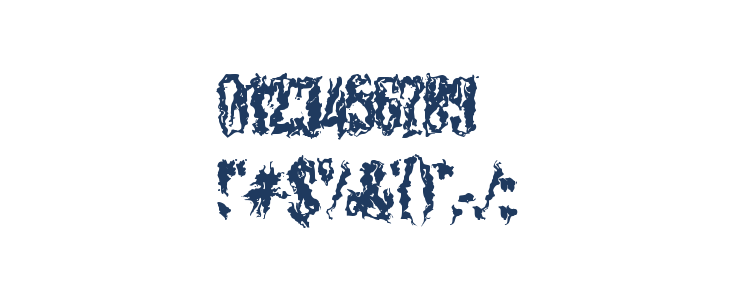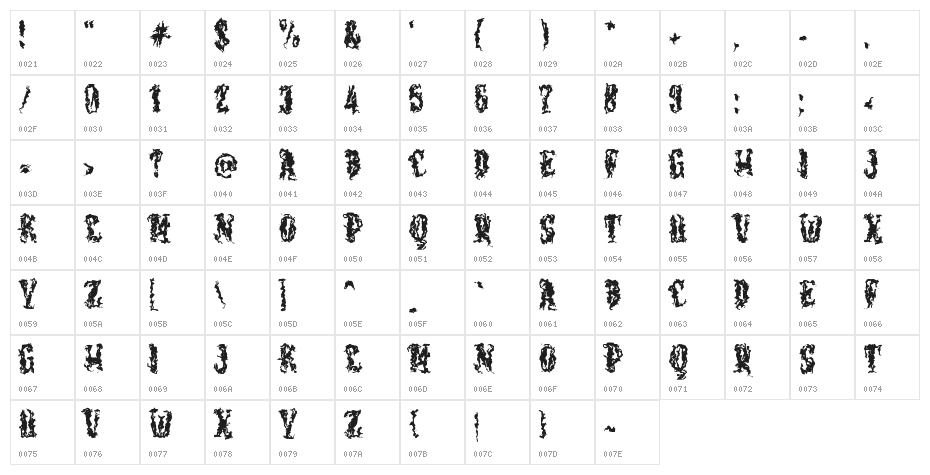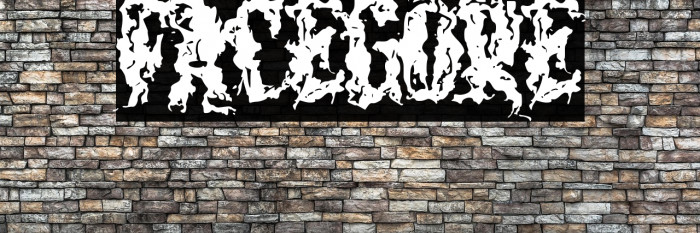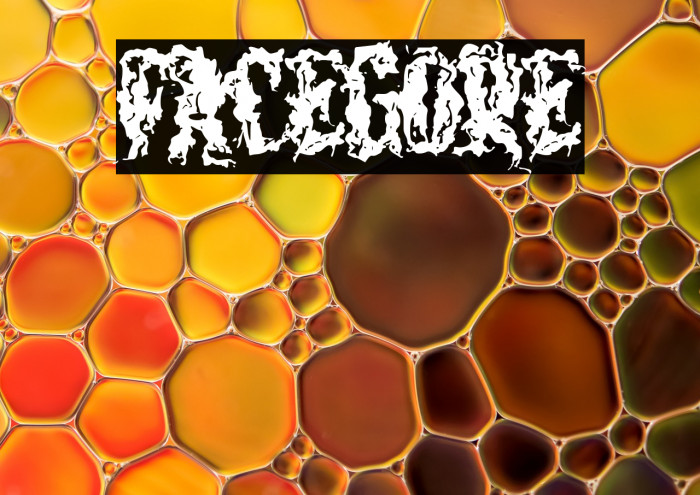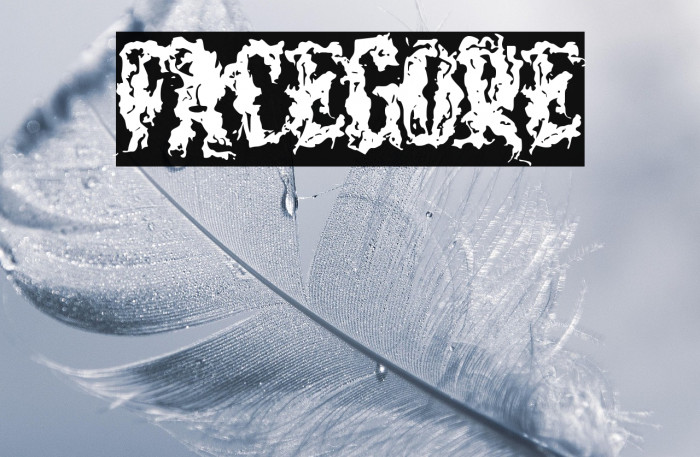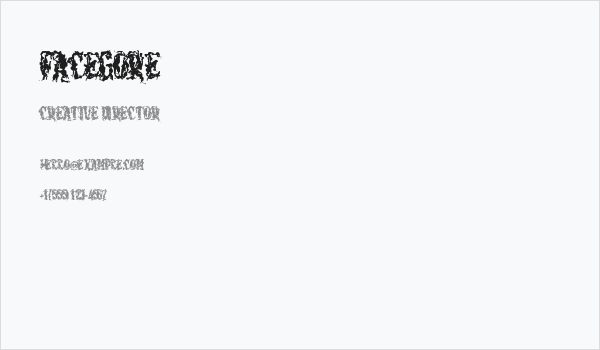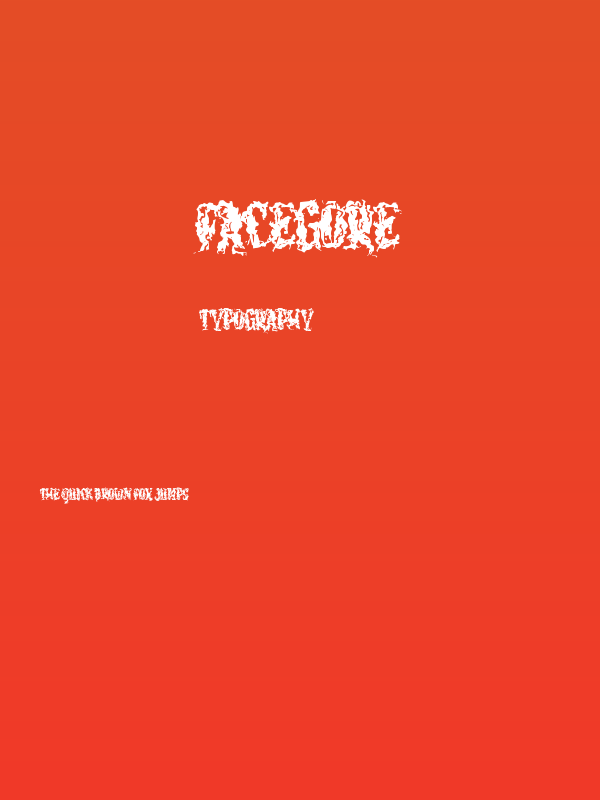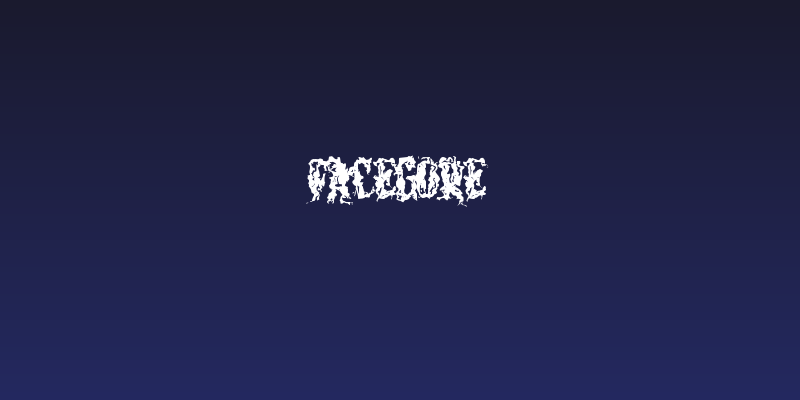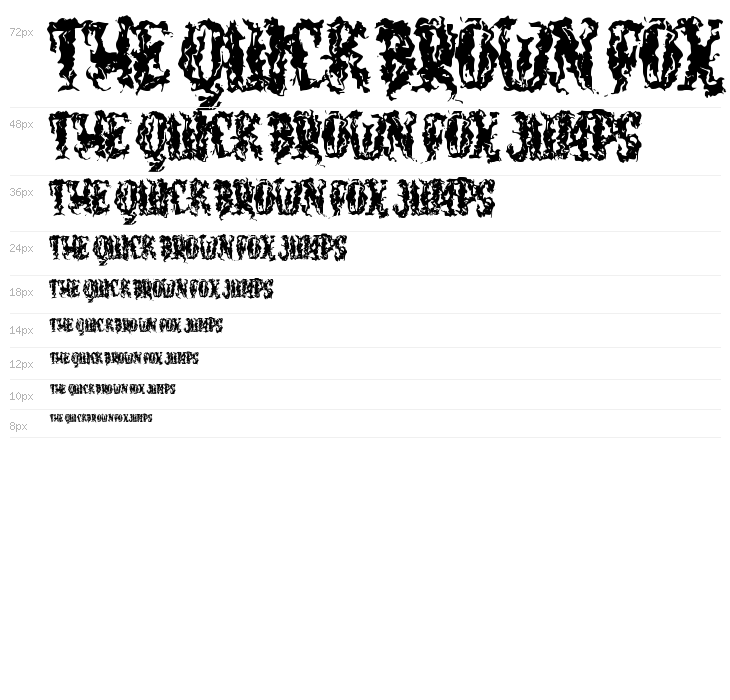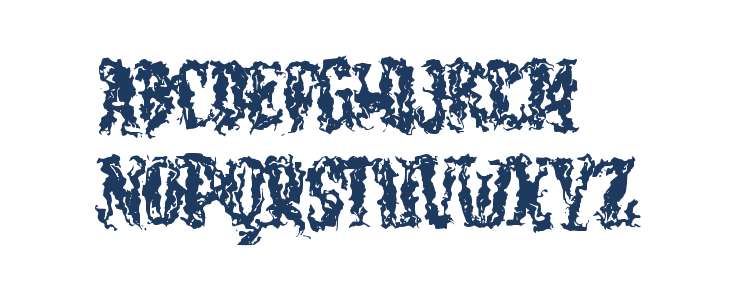
FACEGORE Font
FACEGORE Description
This font exhibits a highly decorative and chaotic style, characterized by its jagged, irregular edges and intricate detailing that resembles organic or decayed textures. The letters are bold and dense, with a strong visual impact that makes them stand out prominently. Each character appears to be crafted with a sense of movement and energy, giving the font a dynamic and somewhat aggressive appearance. The overall aesthetic is reminiscent of horror or gothic themes, making it suitable for projects that require a dramatic and intense visual presentation.
| Proposed Projects | Ideal for horror-themed posters, album covers, Halloween invitations, or any project needing a dramatic and intense visual impact. |